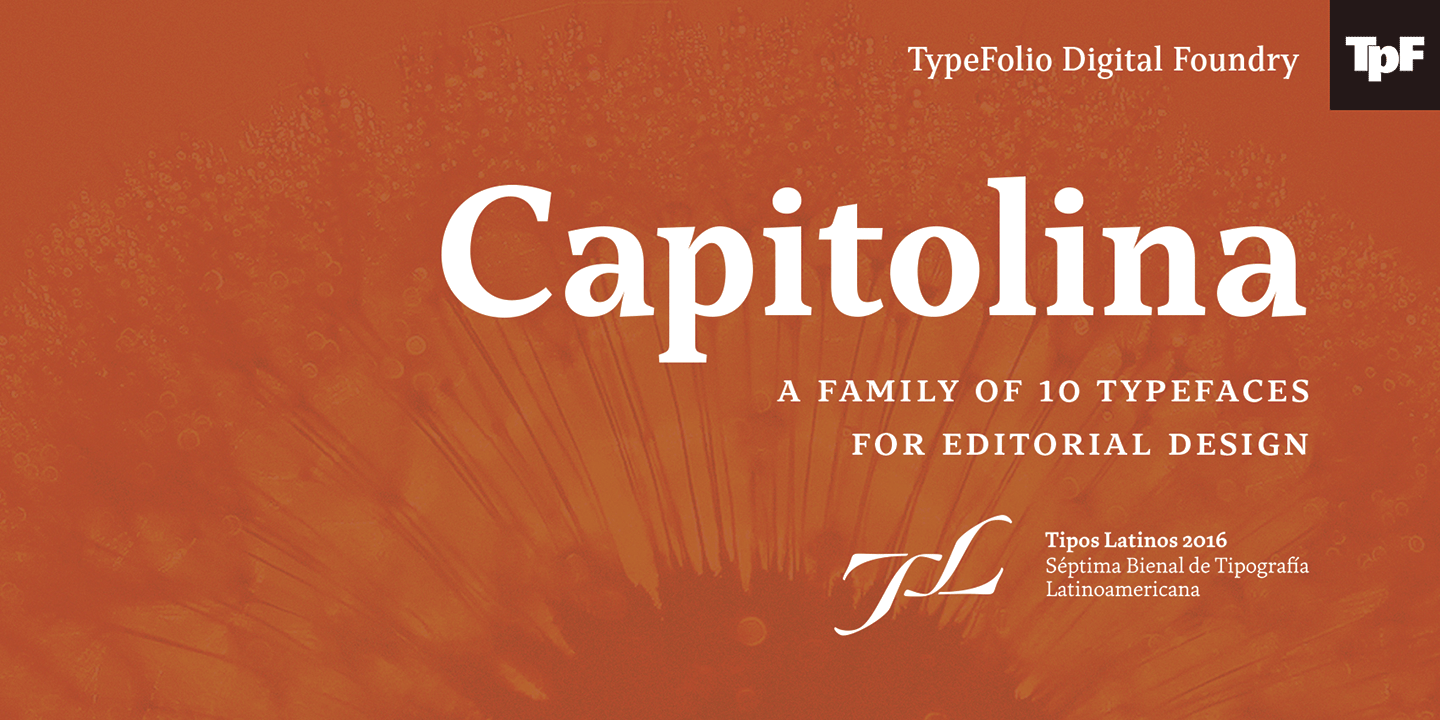
This distinguished typeface is an excellent choice for projects that demand a blend of classic elegance, strong readability, and a timeless, authoritative presence. Imagine it gracing the pages of prestigious academic journals, providing a sophisticated feel to high-end corporate reports, or adding an enduring quality to luxury brand communications. Capitolina Font is also perfectly suited for designing formal invitations, crafting refined editorial layouts for cultural institutions, or creating compelling visuals for heritage brands and historical narratives. Its balanced proportions, clear serifs, and classical roots make it an ideal option for any design seeking to convey gravitas, intellectual depth, and a high level of professionalism, such as legal documents, art exhibition catalogs, or bespoke stationery for esteemed individuals.
What makes Capitolina Font so exciting? It elegantly combines the timeless appeal of traditional serif typography with a modern approach to legibility and versatility. The letterforms are characterized by their clear structure, open counters, and a harmonious rhythm that ensures comfortable reading even in dense text blocks. This font doesn’t just present information; it frames it with an inherent sense of dignity and intellectual rigor, elevating the content it carries. It's engineered to perform exceptionally well in both print and digital environments, making it a true workhorse for serious and formal applications. The inherent balance and sophisticated appeal of its character shapes make it particularly effective for brands that champion knowledge, tradition, and a universally appealing, timeless identity. Its design can evoke a sense of established authority and refined taste.
The Capitolina Font family typically offers a comprehensive range of weights and styles, providing extensive flexibility for designers to build complete and cohesive typographic systems. You can expect to find a broad spectrum of options, including Thin, Light, Regular, Semibold, Bold, and often additional variations like Small Caps, Oldstyle Figures, and various ligatures, along with corresponding italic versions. Each weight and stylistic variant is meticulously designed to maintain the font's core characteristics while offering distinct visual impacts, allowing for a precise and nuanced typographic hierarchy. These variations enable designers to create sophisticated and highly functional text layouts, effectively differentiating between headlines, subheadings, and body text with unparalleled elegance and clarity. The extensive family ensures that Capitolina Font can be the singular typeface for an entire project, guaranteeing visual consistency and a polished, professional appearance across all mediums.
Whether you're compiling a significant publication, building a prestigious brand identity, or simply need a typeface that speaks with timeless elegance and clear authority, Capitolina Font Free Download is an outstanding choice. Its refined design and broad versatility will ensure your message is always delivered with utmost clarity and sophisticated purpose.